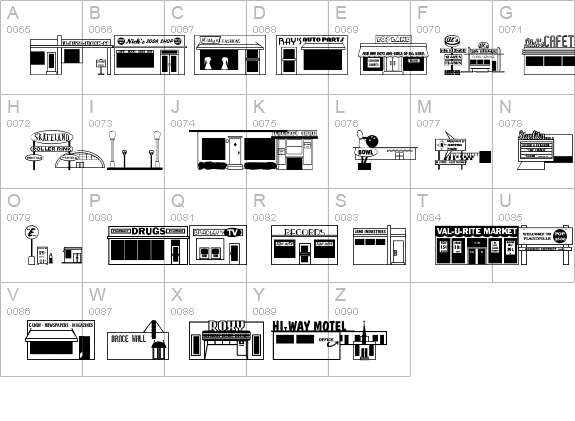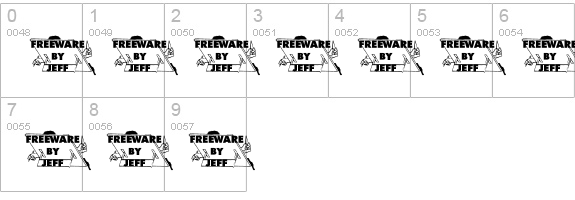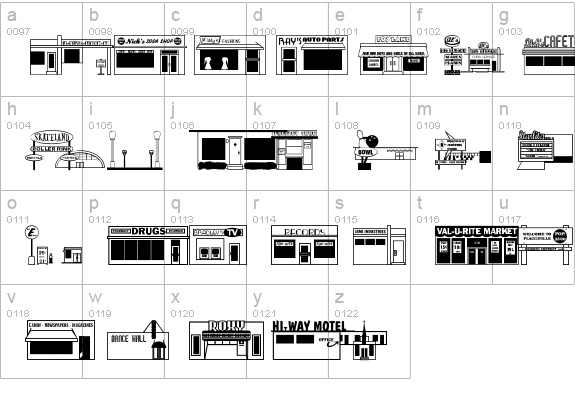
50's Yesterdings JL Font Details
50's Yesterdings JL font is a charming and nostalgic typeface that harks back to the retro styles of the 1950s. With its quirky and playful design, this font captures the essence of a bygone era, making it perfect for vintage-inspired projects and designs. The whimsical letterforms and unique character of 50's Yesterdings JL font add a touch of fun and personality to any creative work. What's even better is that this font is available for free download at FontsMarket.com, making it accessible to anyone looking to add a vintage flair to their designs. Whether you're creating posters, invitations, or branding materials, 50's Yesterdings JL font is sure to bring a touch of nostalgia and charm to your projects. Don't miss out on this delightful font that captures the spirit of the 1950s in a modern and stylish way.